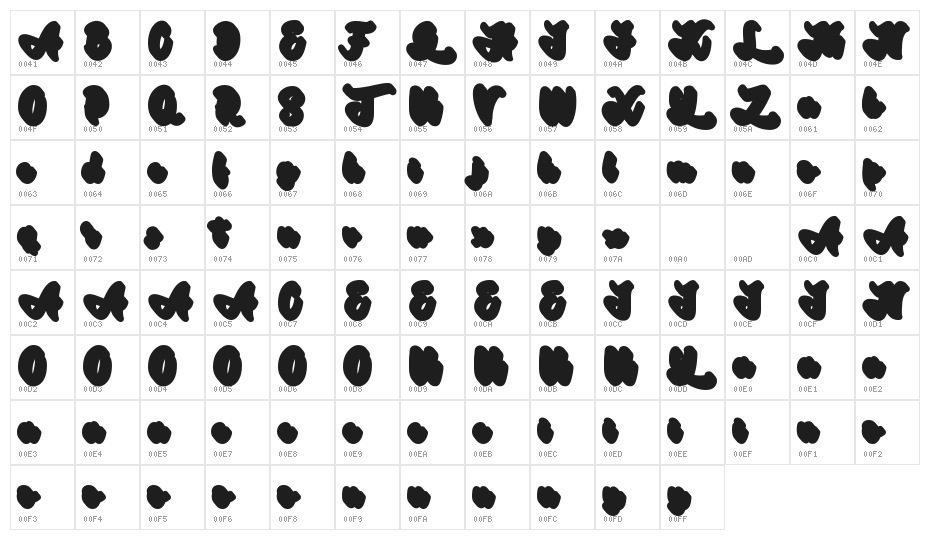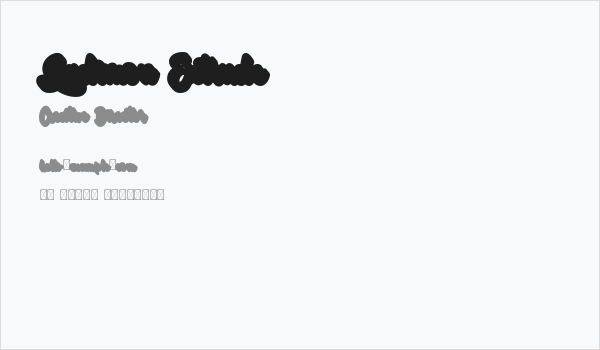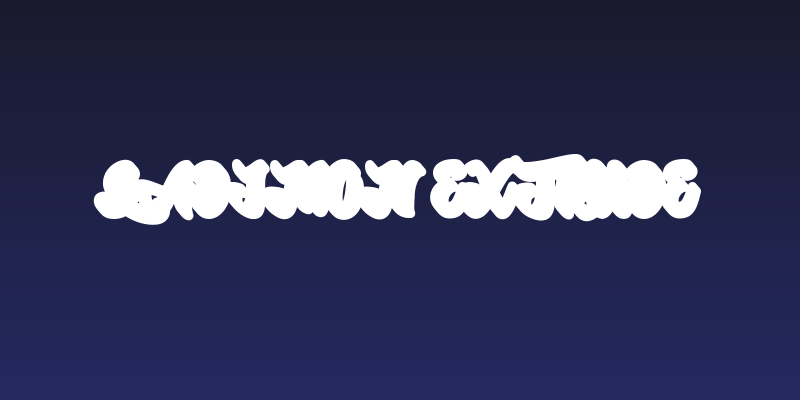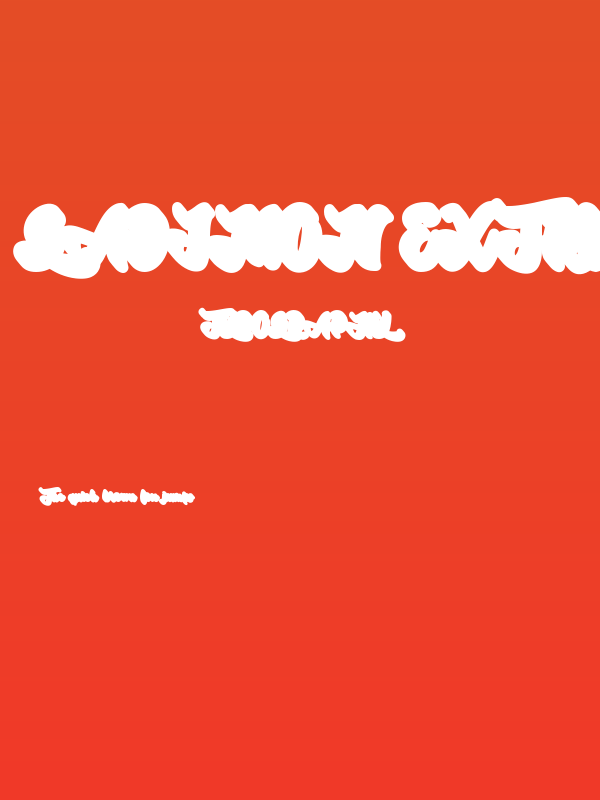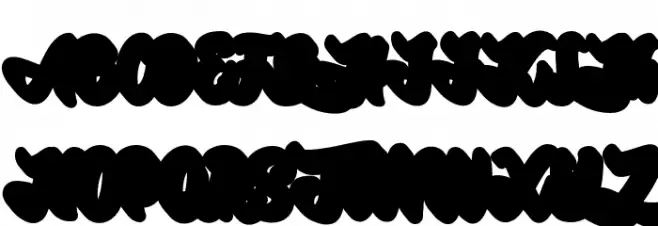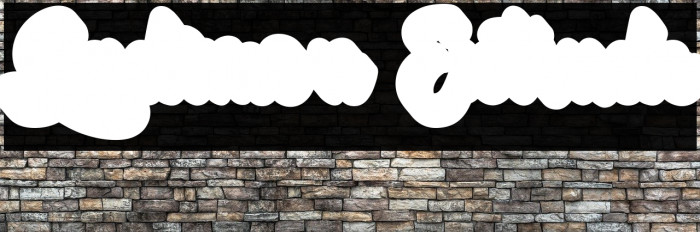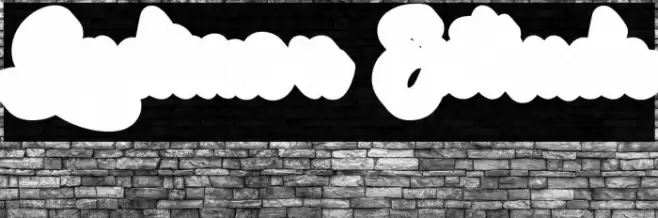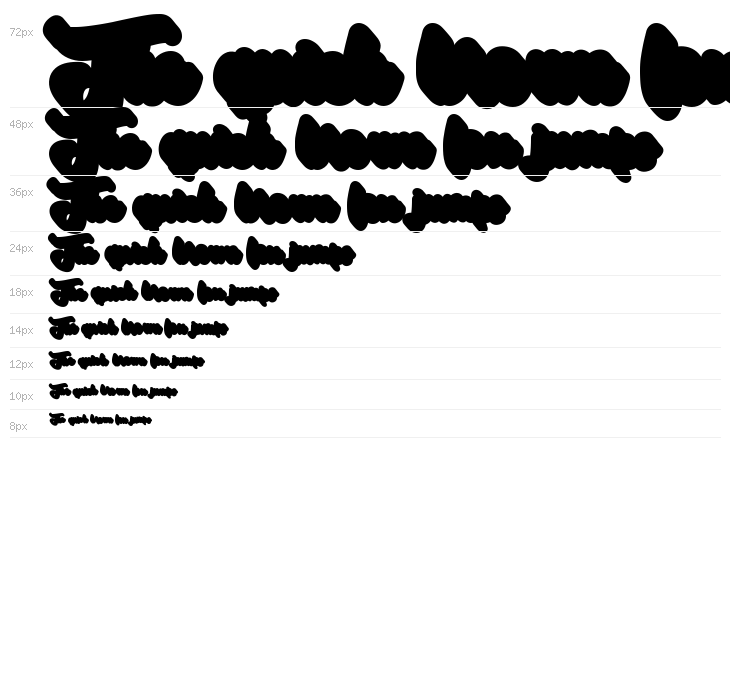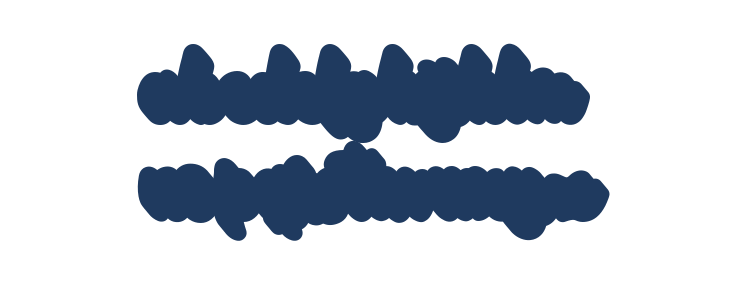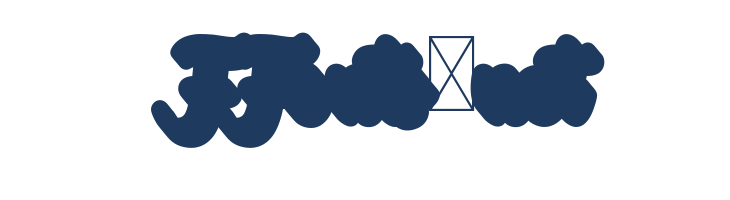
Gadimon Extrude Font
Gadimon Extrude Description
This font features a bold, playful style with a three-dimensional extruded effect, giving it a striking and dynamic appearance. The characters are rounded and heavily stylized, with a consistent thickness throughout, creating a sense of uniformity and balance. The exaggerated curves and thick strokes make it highly decorative and eye-catching, suitable for designs that require a strong visual impact. Its unique style is reminiscent of graffiti or street art, making it ideal for projects that aim to convey creativity and modernity. The font's boldness and distinctiveness make it less suitable for body text but perfect for headlines and logos where attention-grabbing aesthetics are desired.
| Proposed Projects | Perfect for posters, logos, album covers, and any creative projects that require a bold statement. |